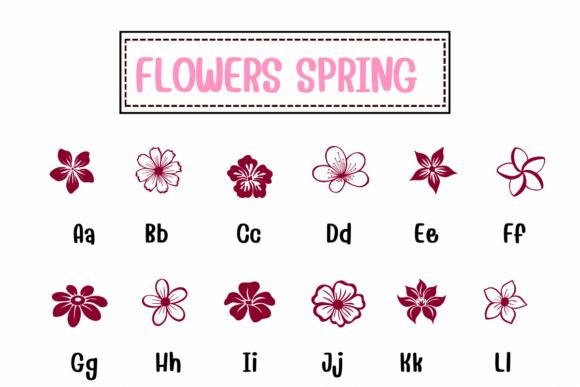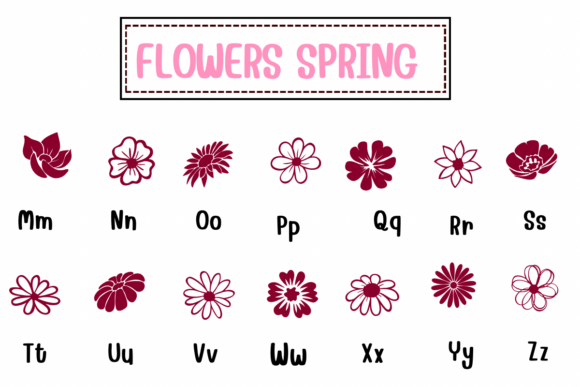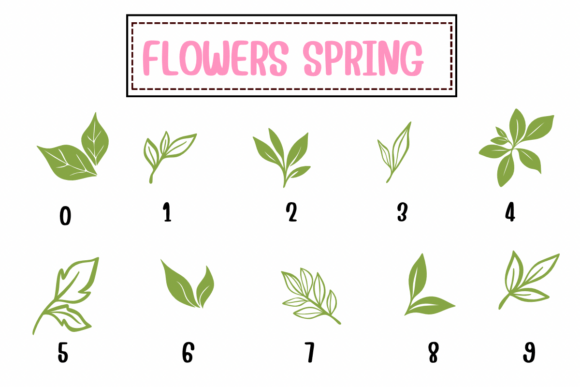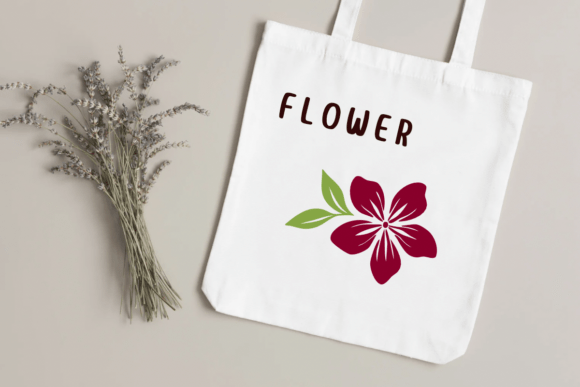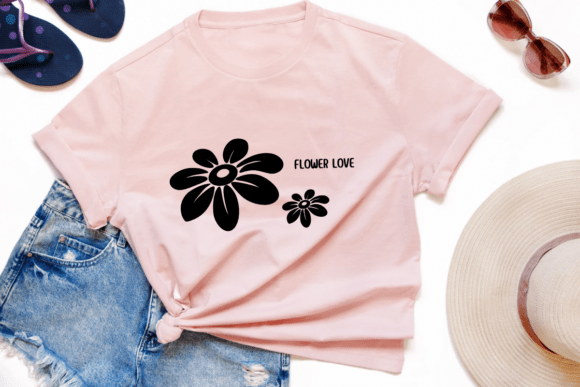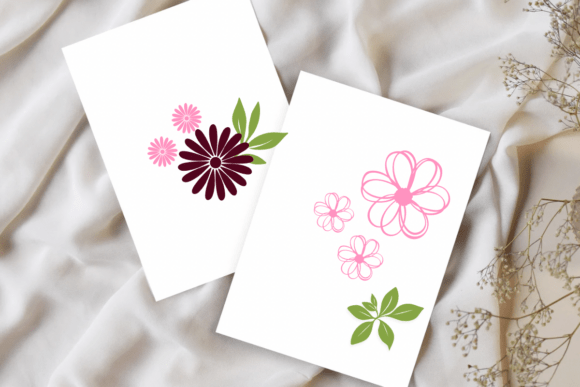
Introducing Flowers Spring Font: Elevate Your Creative Projects with a Touch of Floral Elegance
Are you a designer, crafter, or DIY enthusiast looking for a unique and beautiful font to enhance your creative projects? Look no further than Flowers Spring Font, a stunning dingbats font with a floral theme. This gorgeous font is perfect for adding a touch of elegance and sophistication to your wedding invitations, DIY crafts, decorations, logos, and many other creative ideas.
What is Flowers Spring Font?
Flowers Spring Font is a dingbats font, which means it’s a type of font that features decorative symbols, in this case, beautiful floral designs. The font is made up of intricate and delicate illustrations of flowers, leaves, and other botanical elements, making it perfect for projects that require a touch of nature and elegance.
Features of Flowers Spring Font
Flowers Spring Font has several features that make it a standout choice for designers and crafters. Some of its key features include:
- Unique and exclusive designs: The font features a wide range of unique and exclusive floral designs, ensuring that your projects stand out from the crowd.
- High-quality illustrations: The illustrations in Flowers Spring Font are of exceptionally high quality, making them perfect for printing and digital use.
- Easily scalable: The font is easily scalable, allowing you to use it for a wide range of projects, from small crafts to large-scale designs.
Uses of Flowers Spring Font
Flowers Spring Font is a versatile font that can be used for a wide range of creative projects, including:
- Wedding invitations: Add a touch of elegance and sophistication to your wedding invitations with Flowers Spring Font.
- DIY crafts: Use the font to create beautiful and unique DIY crafts, such as paper flowers, gift tags, and more.
- Decorations: Use Flowers Spring Font to create stunning decorations, such as garlands, banners, and more.
- Logos and branding: Use the font to create beautiful and unique logos and branding materials for your business.
- Stationery and greeting cards: Add a touch of floral elegance to your stationery and greeting cards with Flowers Spring Font.
Tips for Using Flowers Spring Font
Here are some tips for using Flowers Spring Font to get the most out of this beautiful font:
- Experiment with different sizes and colors: Experiment with different sizes and colors to find the perfect combination for your project.
- Combine with other fonts: Combine Flowers Spring Font with other fonts to create a unique and eye-catching design.
- Use for headlines and titles: Use the font for headlines and titles to add a touch of elegance and sophistication to your project.
- Don’t be afraid to get creative: Don’t be afraid to get creative and experiment with different designs and ideas.